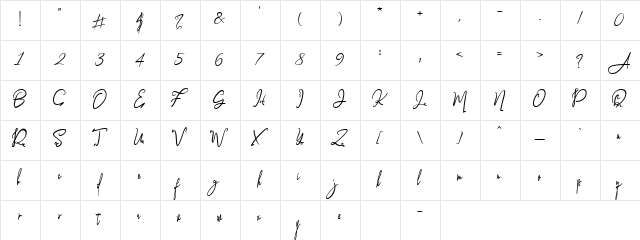
Gwothmey Regular
| Designer | Aldedesign 2019 |
Design Context for Gwothmey Typeface
Gwothmey is a composed and adaptable typeface that performs quietly and consistently across a wide range of design contexts.